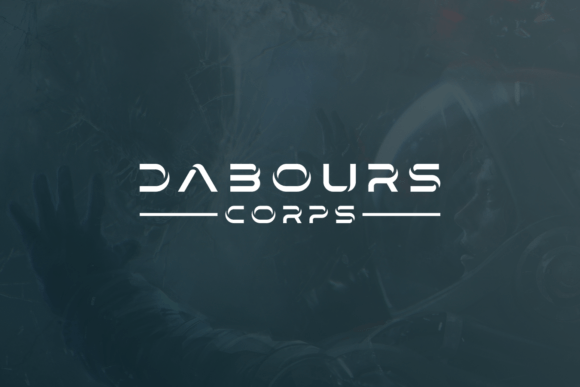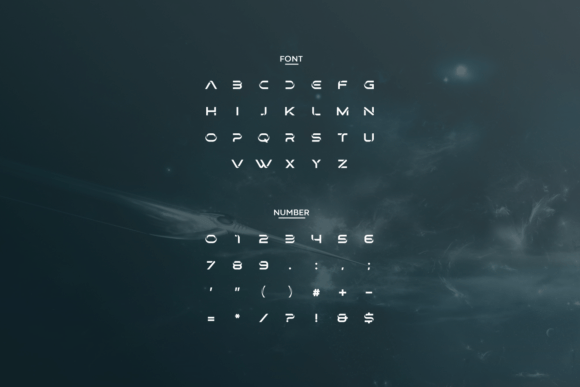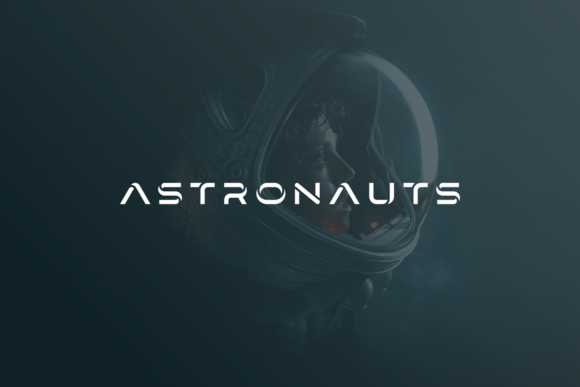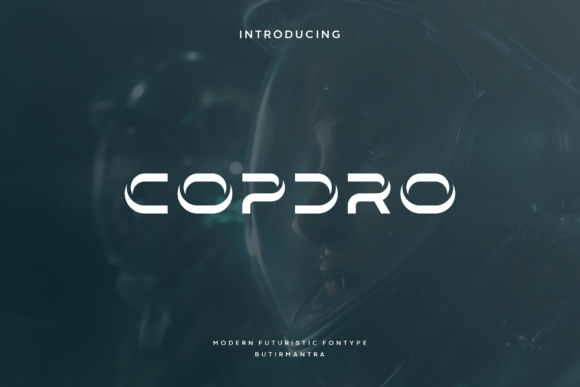
Discover the Perfect Headline Font for Your Next Project
Have you ever stared at a blank page, searching for the perfect font to make your design truly shine? We’ve all been there – the frustration of scrolling through endless options, the excitement of finding that one font that makes everything click. For designers, the hunt for the perfect font is a never-ending quest, and it’s a journey that’s about to get a whole lot easier with the introduction of the Copdro Font.
This cool and neat display font is specifically designed to make a statement, whether it’s for a bold headline, a logo design, or a branding project. With its simple yet modern and elegant look, the smooth angular shape of the Copdro Font is sure to add a touch of class to any design. And the best part? It’s a game-changer for designers, offering a level of versatility and sophistication that’s hard to find in other fonts.
Copdro Font Key Features
• Font Family: A unique sans-serif font family with a modern and clean design.
• Unique Characteristics: Features a distinctive x-height and a balanced stroke width, making it highly legible and aesthetically pleasing.
Copdro Font Review
I recently had the chance to work with the Copdro font, and I’m sharing my honest review with you. ✨ Here are the things that work well:
• Unique Character**: Copdro has a distinctive and modern feel that sets it apart from other fonts. It’s perfect for designers looking to add a touch of sophistication to their projects.
• High Legibility**: This font is incredibly easy to read, even at smaller font sizes. It’s a great choice for body text, headings, or any other situation where readability is crucial.
• Limited Character Set**: Copdro has a relatively small character set, which may limit its use for languages that require a broader character set.
• Not Suitable for Display Text**: While Copdro is great for body text, it may not be the best choice for display text or headings that need a bit more flair.
Overall, I think Copdro is a solid choice for designers who need a clean, modern font for body text. It’s not perfect, but it’s a great option for the right project. With a bit more development, I think Copdro could become a top contender in the font world.
Tips for Getting the Most Out of Copdro Font
For the best results, use Copdro Font in conjunction with bold and italic styles to create visual interest.
Use it in headings and titles to draw attention to key information.
Experiment with different font sizes and colors to create a unique visual identity.
Copdro Font is ideal for:
– Creating modern and sleek headings and titles.
– Adding a touch of sophistication to presentations and documents.
– Designing branding materials, such as logos and business cards.
Alternatives to Copdro Font
Playfair Display is a luxurious, high-end serif font ideal for use in upscale branding, magazines, and advertisements. It features elegant connections and flowing lines that evoke a sense of sophistication and refinement.
Playfair Display is a more ornate and luxurious alternative to Copdro Font, with a more elegant and refined feel. It’s perfect for high-end branding, luxury products, or any project that demands a sense of opulence.
Great Vibes is a modern, elegant script font that’s perfect for use in branding, advertising, and packaging. It features a flowing, handwritten feel that’s both stylish and sophisticated.